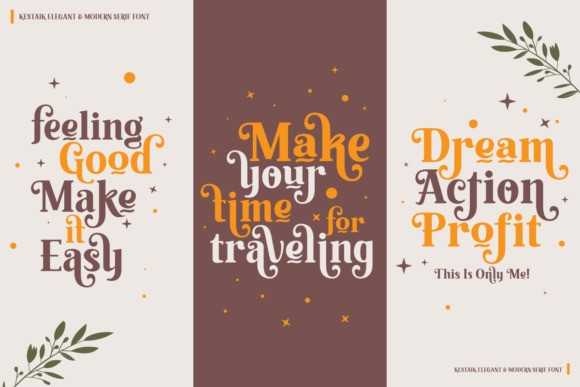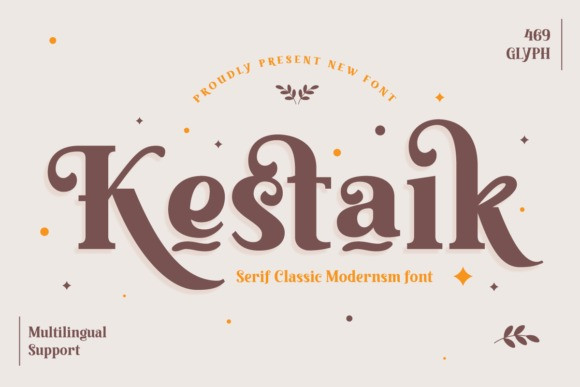
Kestaik Font
Kestaik Serif Font is a classic serif font that exudes charm and refinement. Its timeless design is perfect for any project that requires a touch of old-world charm. This font is versatile and perfect for a wide range of applications, from branding to editorial design. This font is PUA encoded which means you can access all glyphs and swashes effortlessly!